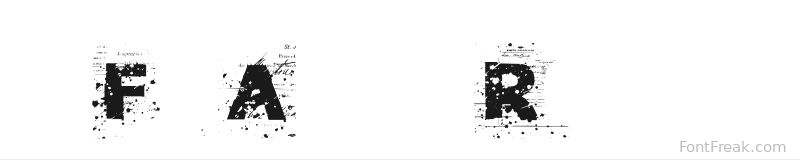
FuckAutority Regular
FuckAutority Regular by Cloutierfontes is a striking display font that falls into the decorative category. This unique typeface showcases a bold, gritty aesthetic, characterized by irregular stroke weights and an expressive, distressed texture that evokes a sense of rebellion. The letters exhibit a rough finish, with splatters and imperfections that add to their raw appeal. The spacing is generous, allowing for easy readability while maintaining an edgy look that draws attention.
This font is versatile, making it ideal for various creative projects. It excels in use cases such as band posters, where its rebellious character can capture the essence of music and culture. Additionally, it’s perfect for streetwear branding, lending a stylish yet defiant touch to clothing labels. For graphic designers working on social media graphics, this font can make quotes and statements pop with personality. Restaurant menus aiming for a bold, modern vibe will also benefit from the unique flair of FuckAutority Regular. Finally, it can be effectively utilized in marketing materials targeting a youthful, edgy demographic.
The target audience for this font includes graphic designers, small business owners, and content creators looking to make a statement. Those who appreciate unconventional design will find this typeface resonates with their creative vision.
What sets FuckAutority Regular apart is its unapologetic attitude and distinctive visual style. The combination of its bold, distressed appearance and free availability as a freeware font makes it a valuable asset for anyone looking to inject a rebellious spirit into their projects. For those interested, the FuckAutority Regular font free download offers a chance to elevate your designs with a unique and memorable typeface.